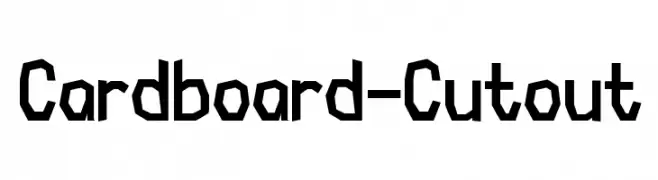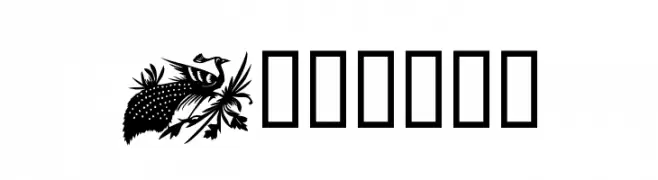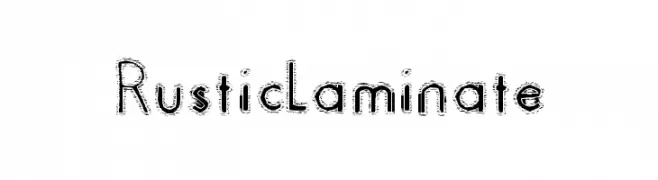
( Spizzella Fancy )
A decorative font with ornate uppercase and bold, rustic lowercase letters.
( Thomas Mettendorf - www.schmalfett.de )
A bold, organic font with a rugged, hand-drawn appearance.
( Thor Christopher Arisland - www.tcarisland.com )
A bold, geometric font with a cutout, handmade appearance.
( Xerographer Fonts - Max Infeld - xerographer.blogspot.com )
A playful, hand-drawn font with whimsical, uneven strokes.
( Xerographer Fonts - Max Infeld - xerographer.blogspot.com )
A decorative vintage font with intricate, hand-drawn details and a textured appearance.
( Andrew Lander - formerly at home.earthlink.net/~landerfam/fonts.html )
A bold, textured font with a distressed, hand-drawn appearance.
( Brian McFeely )
A rustic, hand-drawn font with a textured, vintage appearance.
( Digital Magic - www.graphicdesignplus.com/helen/digitalmagic/ )
Highly decorative and ornate illustrated font with floral motifs.
( Digital Magic - www.graphicdesignplus.com/helen/digitalmagic/ )
Ornamental, illustrative font with detailed, artistic glyphs.
( Elbow - www.elbow.com/fonts )
A distressed, textured font with a vintage and rugged appearance.